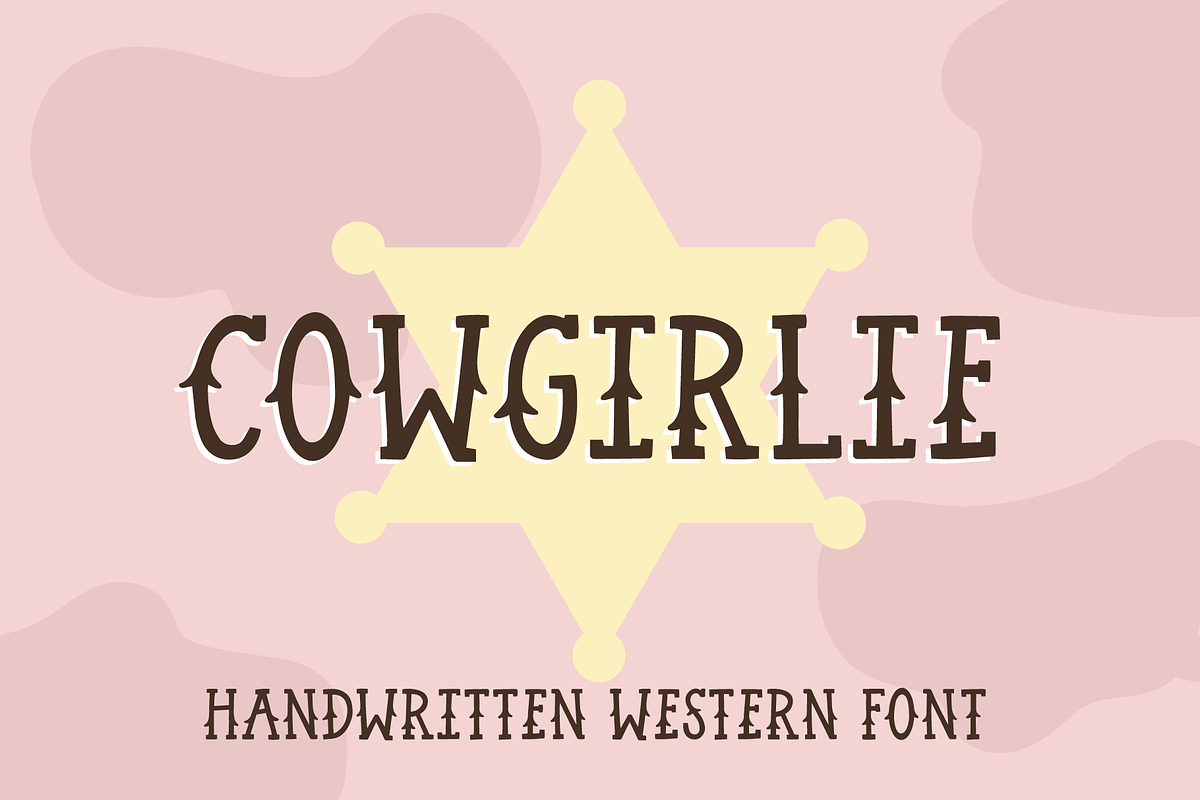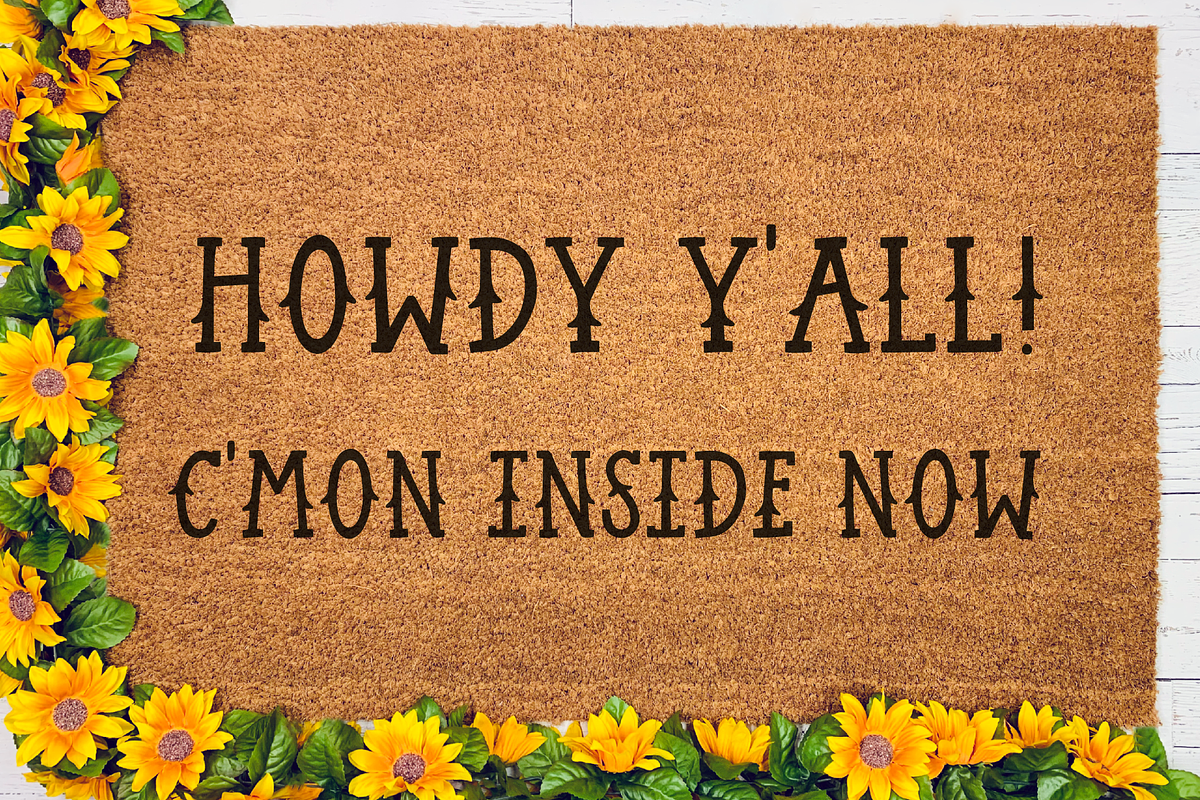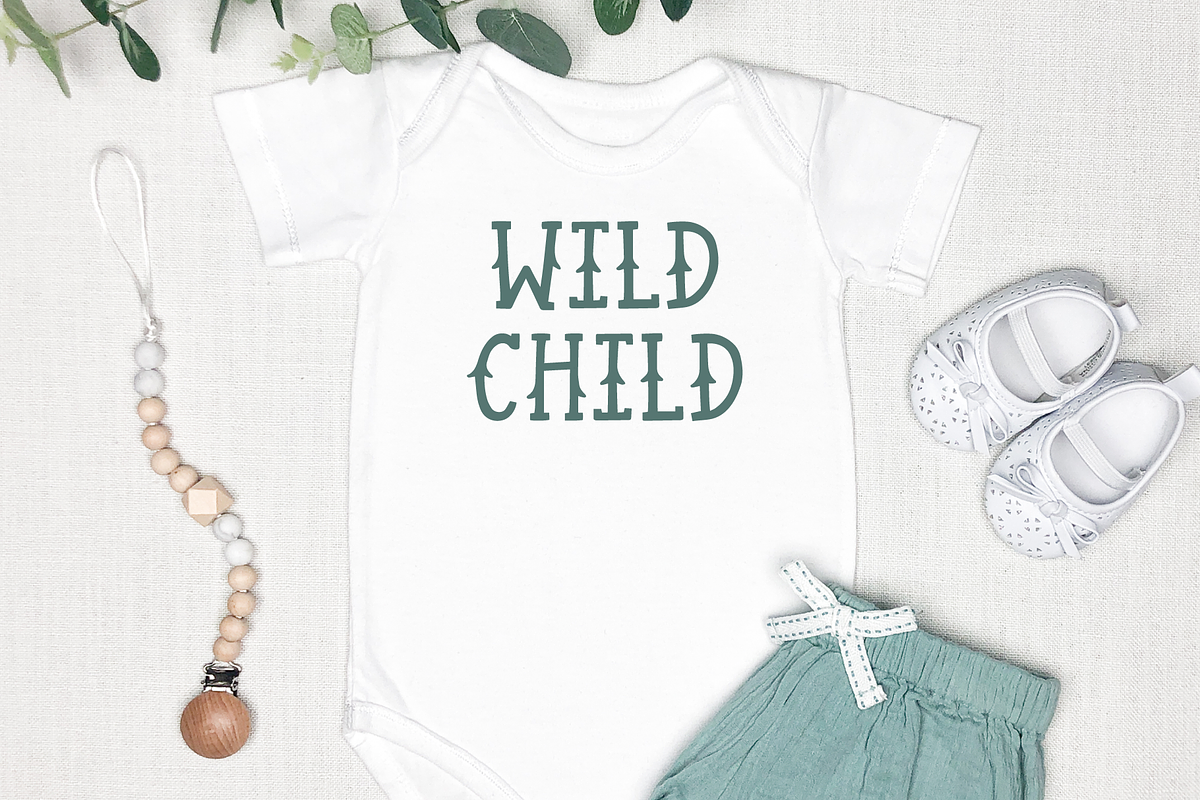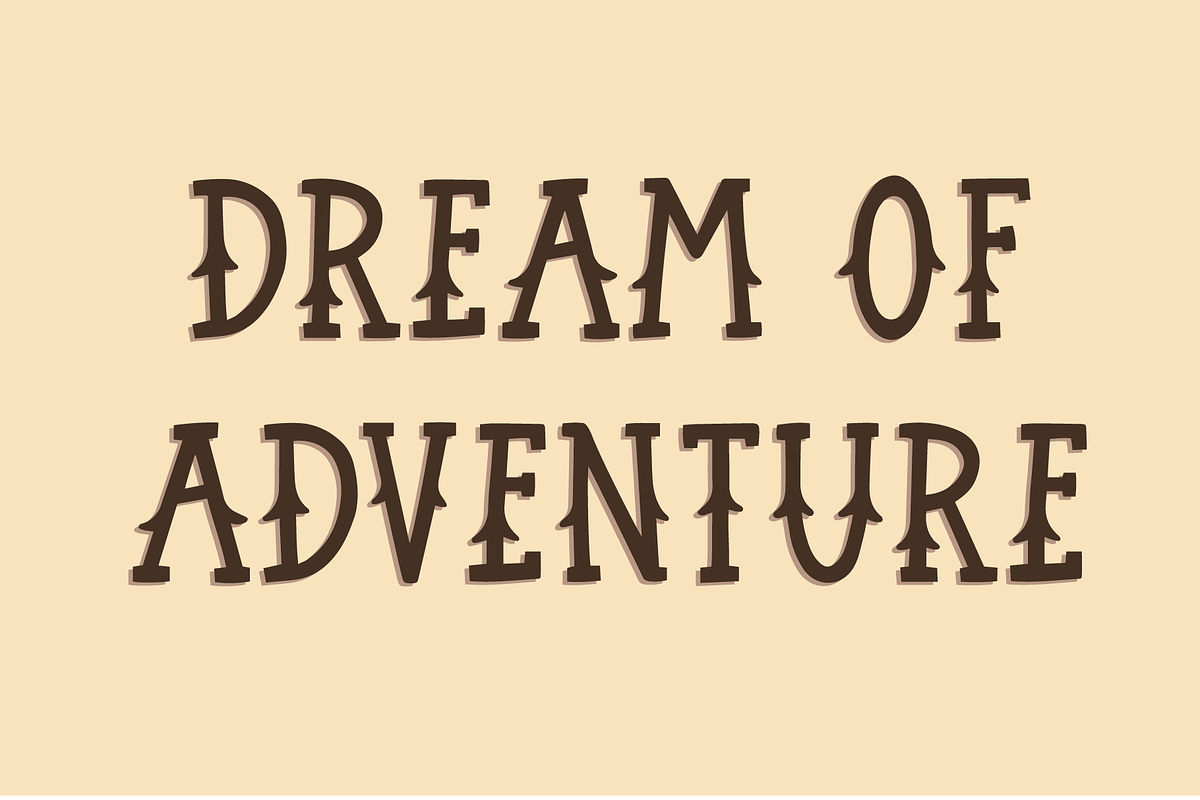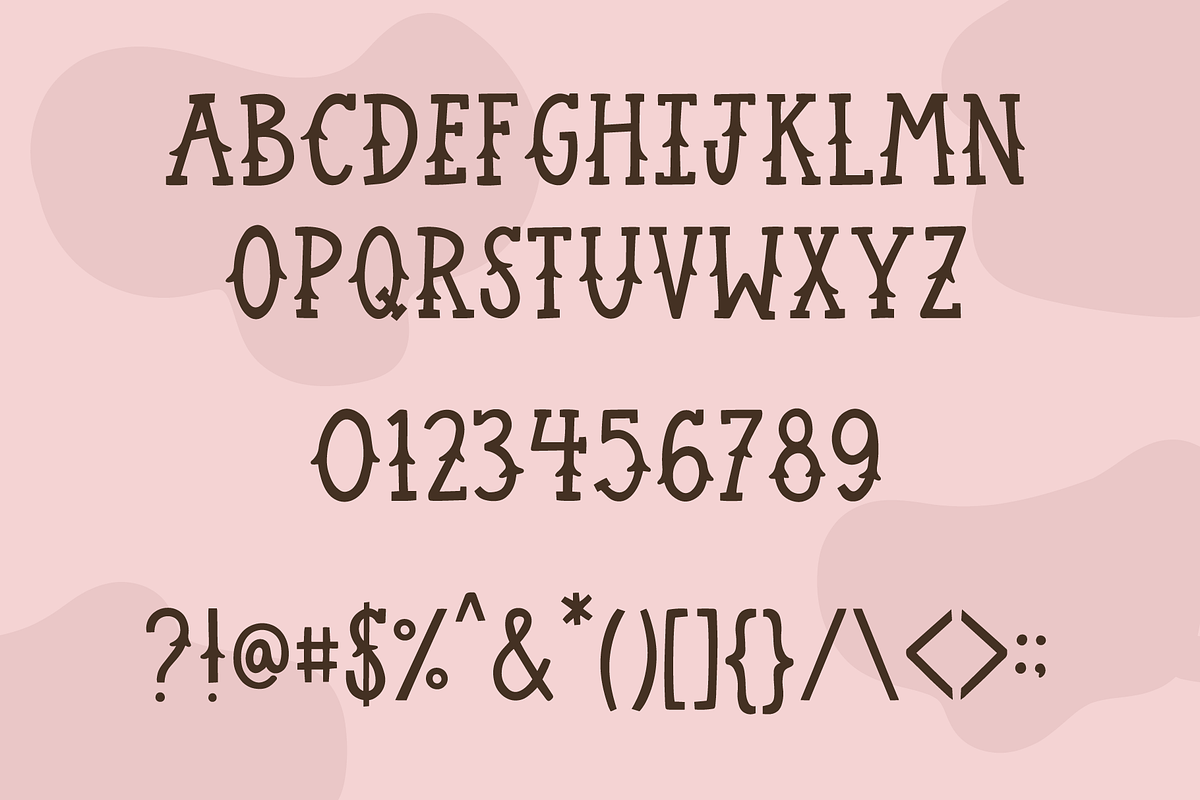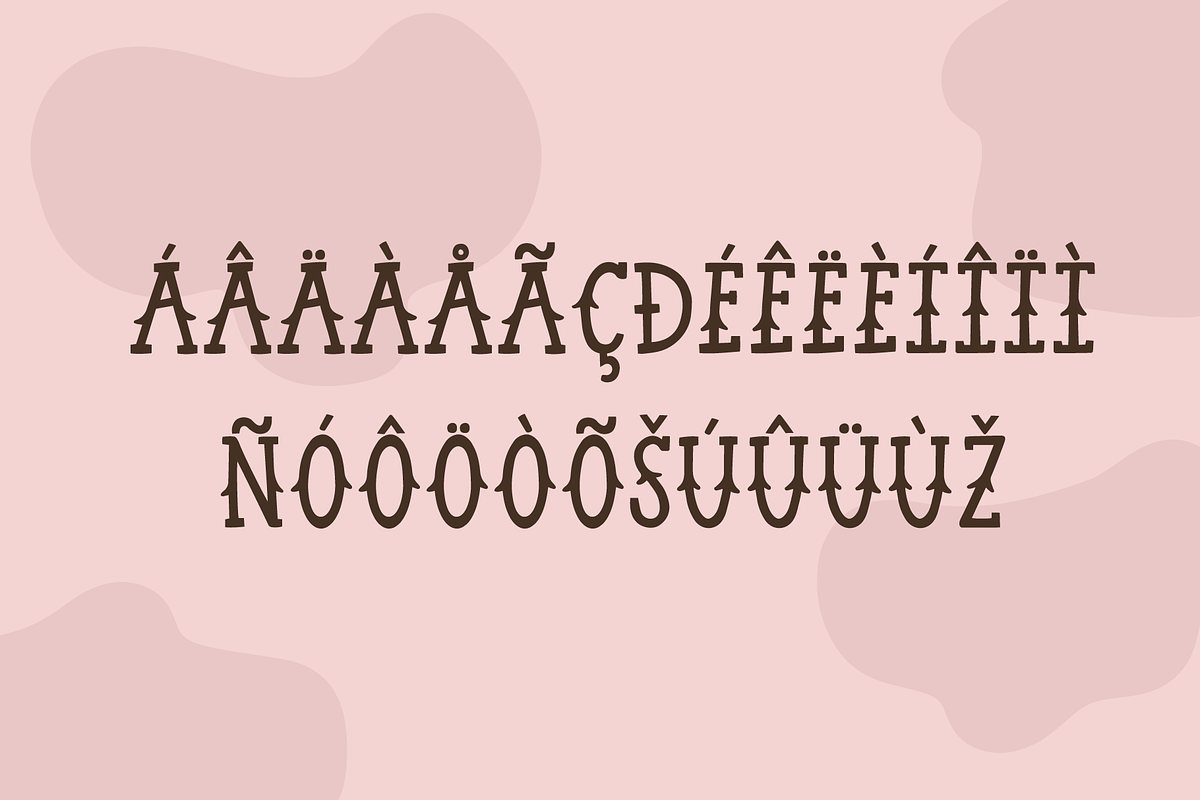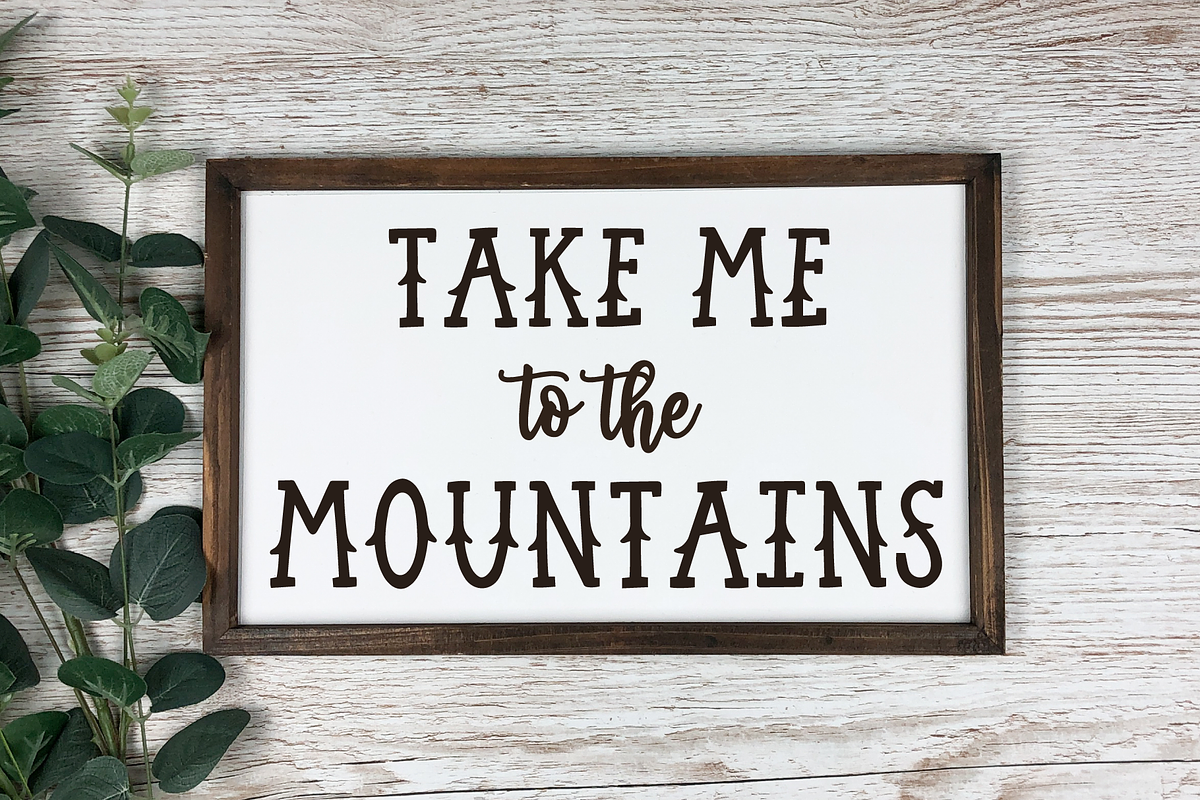
Cowgirlie Handwritten Western Font
Cowgirlie is a western inspired handwritten font. This is an all caps font with numbers, punctuation, some symbols and accented characters.